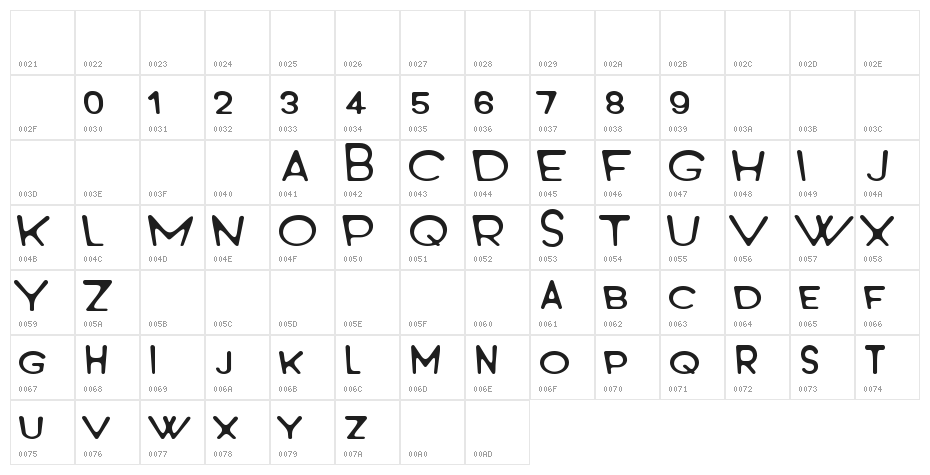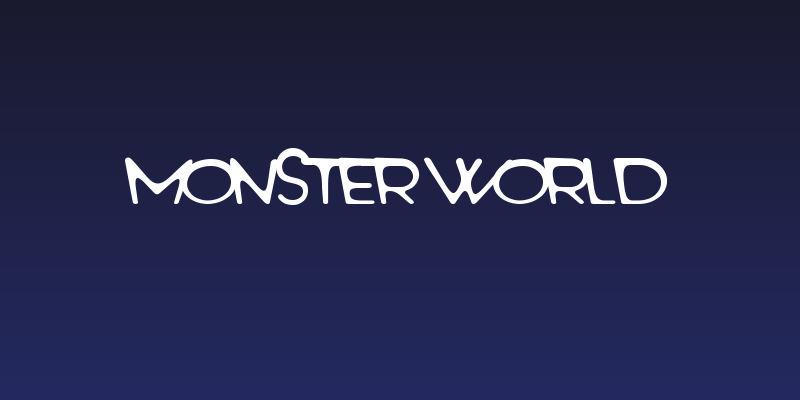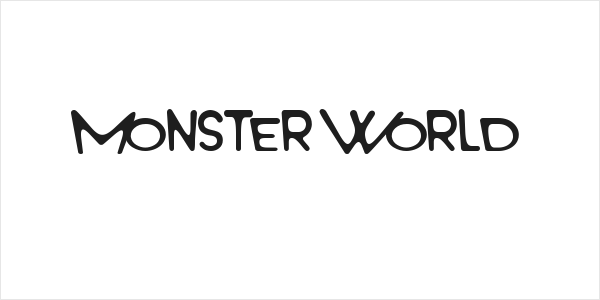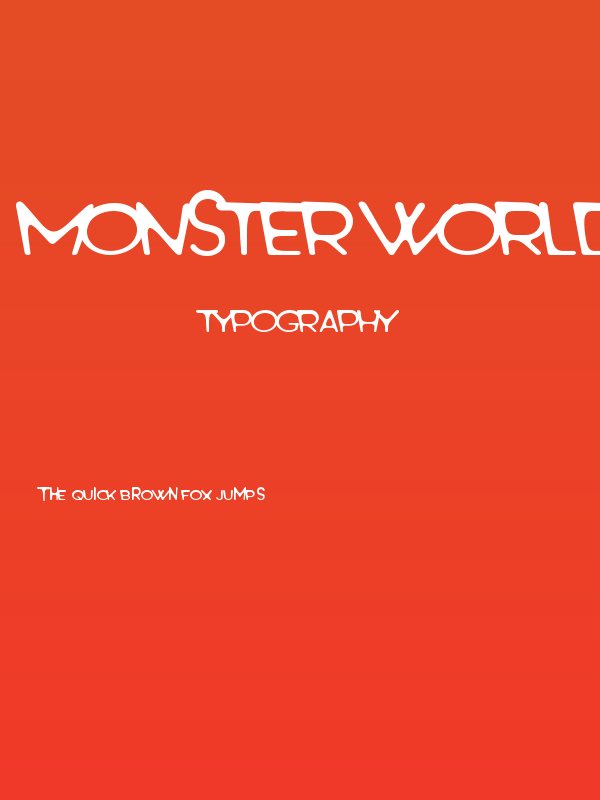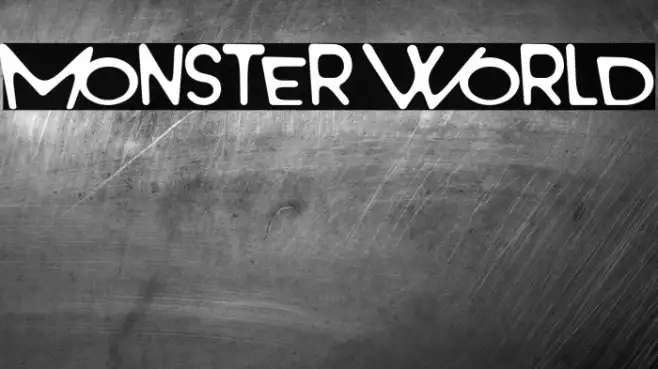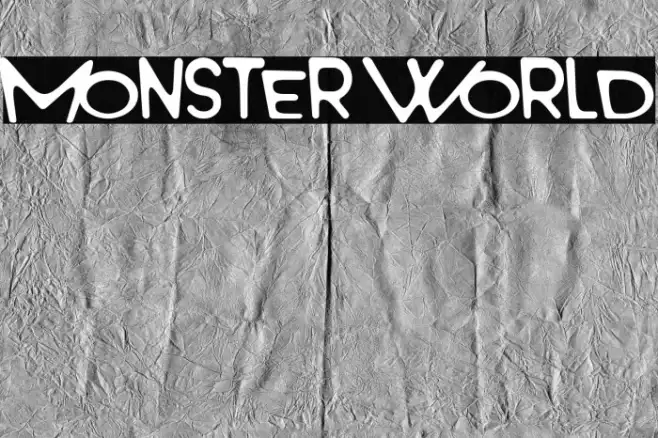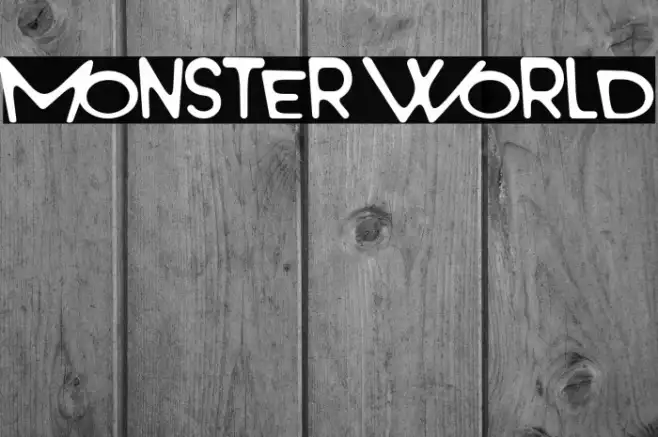
Monster World Font
Monster World Description
This playful and whimsical font features bold, rounded characters with a slightly irregular and hand-drawn appearance. The letters have a cartoonish quality, with exaggerated curves and a sense of movement that adds a lively and fun element to any design. The numbers and special characters maintain the same playful style, ensuring consistency across all text elements. This font is perfect for projects that require a touch of humor and creativity, such as children's books, comic strips, or playful branding materials.
| Proposed Projects | Ideal for children's books, comic strips, playful branding, and creative posters. |